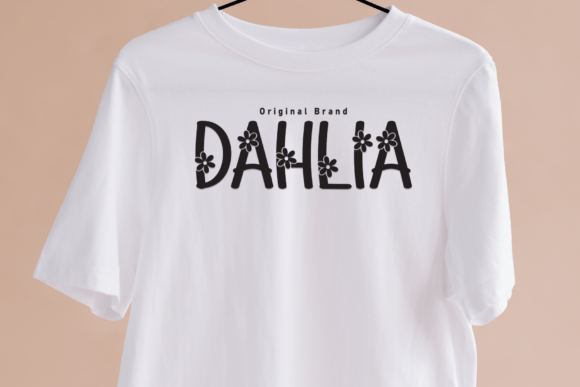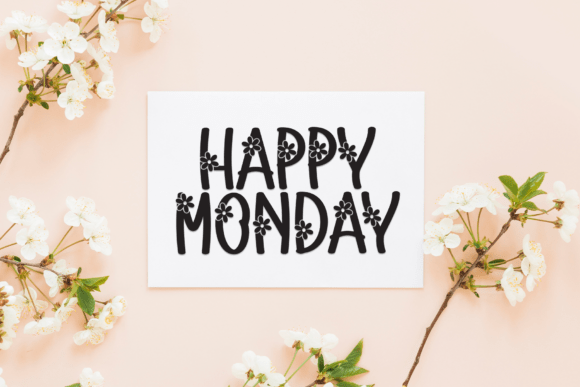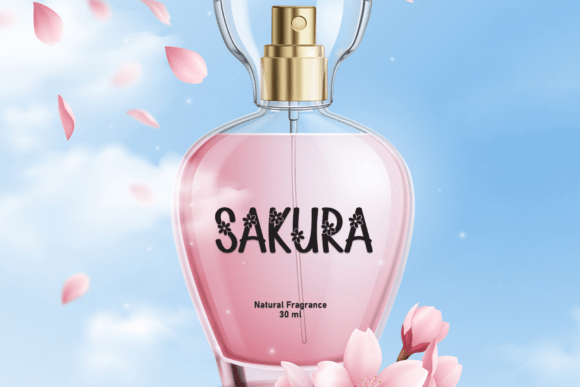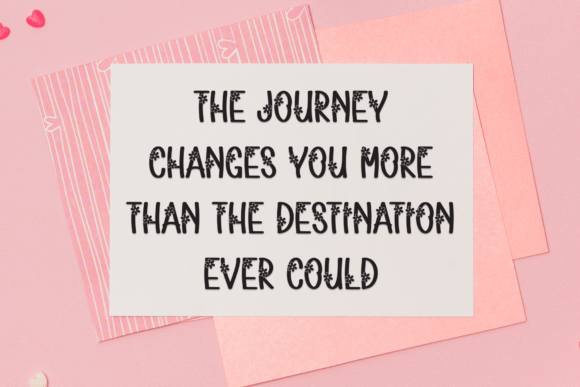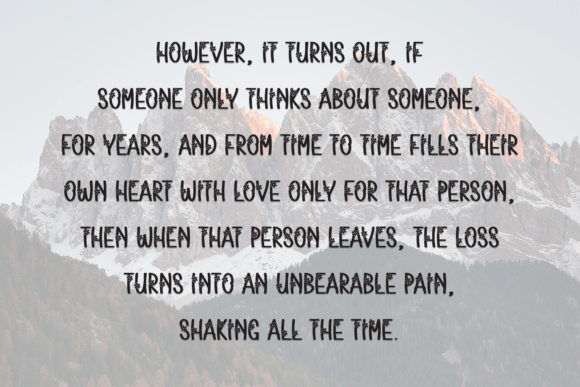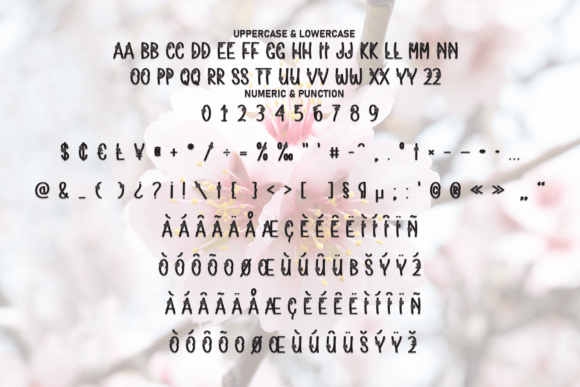
Introducing Chery Blossoms Font: The Ultimate Handwritten Decorative Typeface for Creative Projects
Are you tired of using the same old fonts for your design projects? Do you want to add a touch of playfulness and whimsy to your creations? Look no further than Chery Blossoms Font, an enchantingly friendly and delightful handwritten decorative typeface that is sure to charm your audience. In this article, we’ll take a closer look at what makes Chery Blossoms Font so special and how it can elevate your design projects to the next level.
A Font that Exudes Natural Charm
Chery Blossoms Font is profoundly saturated with a natural, sugary charm that makes it perfect for a variety of creative projects. This font is designed to add a pinch of playfulness and whim to your designs, making it ideal for projects that require a jubilant and vibrant touch. Whether you’re designing wedding invites, greeting cards, or any other artistic pursuit, Chery Blossoms Font is sure to impress.
So, what can you use Chery Blossoms Font for? The possibilities are endless! This versatile font is perfect for designing:
- Spectacular wedding invites that will make your loved ones feel special
- Touching greeting cards that will show your friends and family you care
- Artistic pursuits that require a playful and whimsical touch, such as illustrations, comics, and cartoons
- Branding and packaging designs that need a unique and eye-catching font
- Social media graphics and posts that will make your audience smile
What Makes Chery Blossoms Font So Special?
So, what sets Chery Blossoms Font apart from other fonts? Here are just a few features that make it so special:
- Handwritten with love: Chery Blossoms Font is a handwritten decorative typeface that is full of personality and charm.
- Playful and whimsical: This font is designed to add a touch of playfulness and whimsy to your designs, making it perfect for projects that require a lighthearted touch.
- Natural and sugary charm: Chery Blossoms Font has a natural, sugary charm that makes it perfect for a variety of creative projects.
- Versatile: This font is perfect for a variety of design projects, from wedding invites to artistic pursuits.
- Pair it with other fonts: Chery Blossoms Font pairs perfectly with other fonts, such as sans-serif fonts or script fonts.
- Experiment with colors: This font looks great in a variety of colors, from bright and bold to soft and pastel.
- Add some texture: Adding texture to your design can make it more visually interesting and help Chery Blossoms Font stand out.
In conclusion, Chery Blossoms Font is a unique and charming handwritten decorative typeface that is perfect for a variety of creative projects. With its natural, sugary charm and playful and whimsical design, this font is sure to add a touch of magic to your designs. Whether you’re a designer, crafter, or DIY enthusiast, Chery Blossoms Font is a must-have font that will take your projects to the next level.